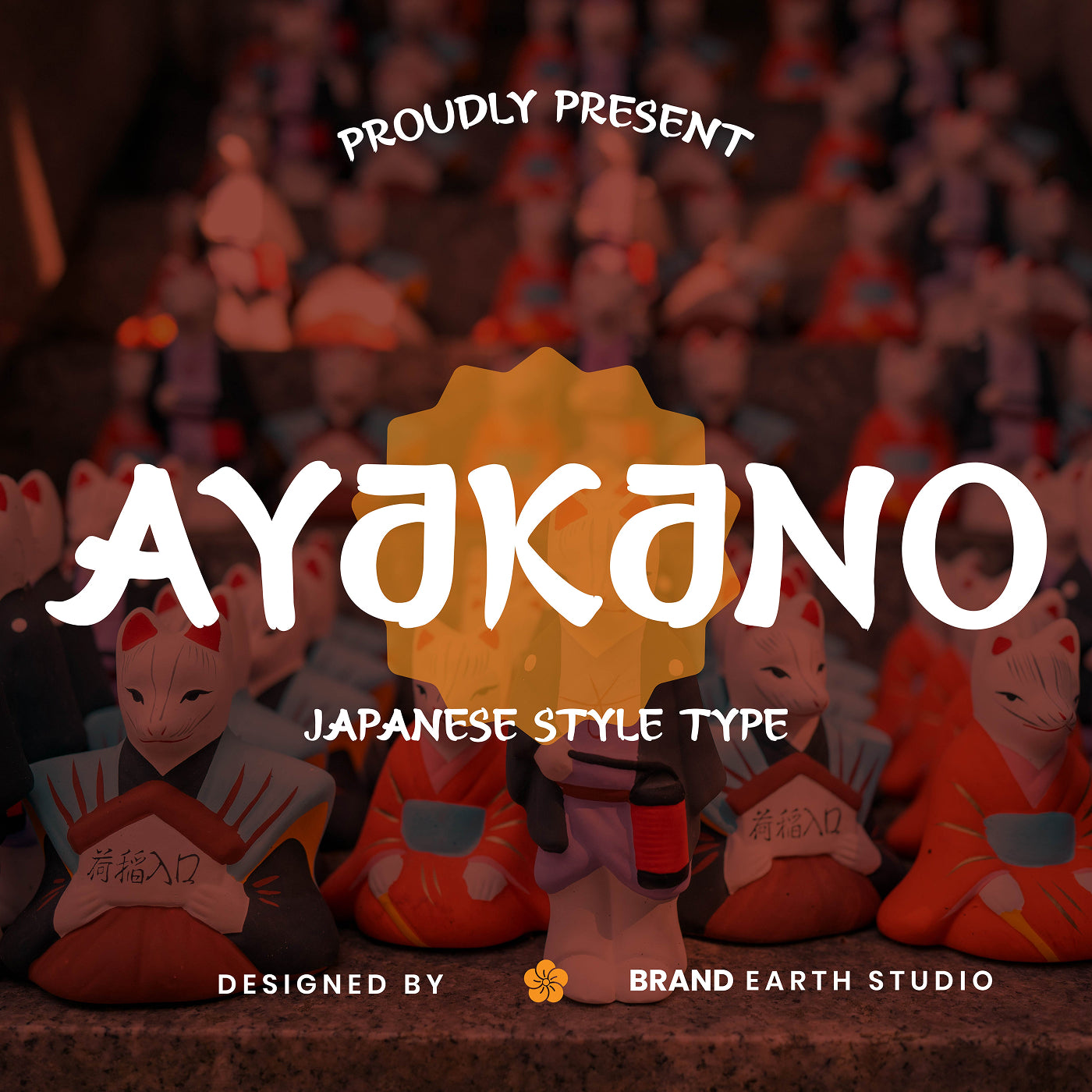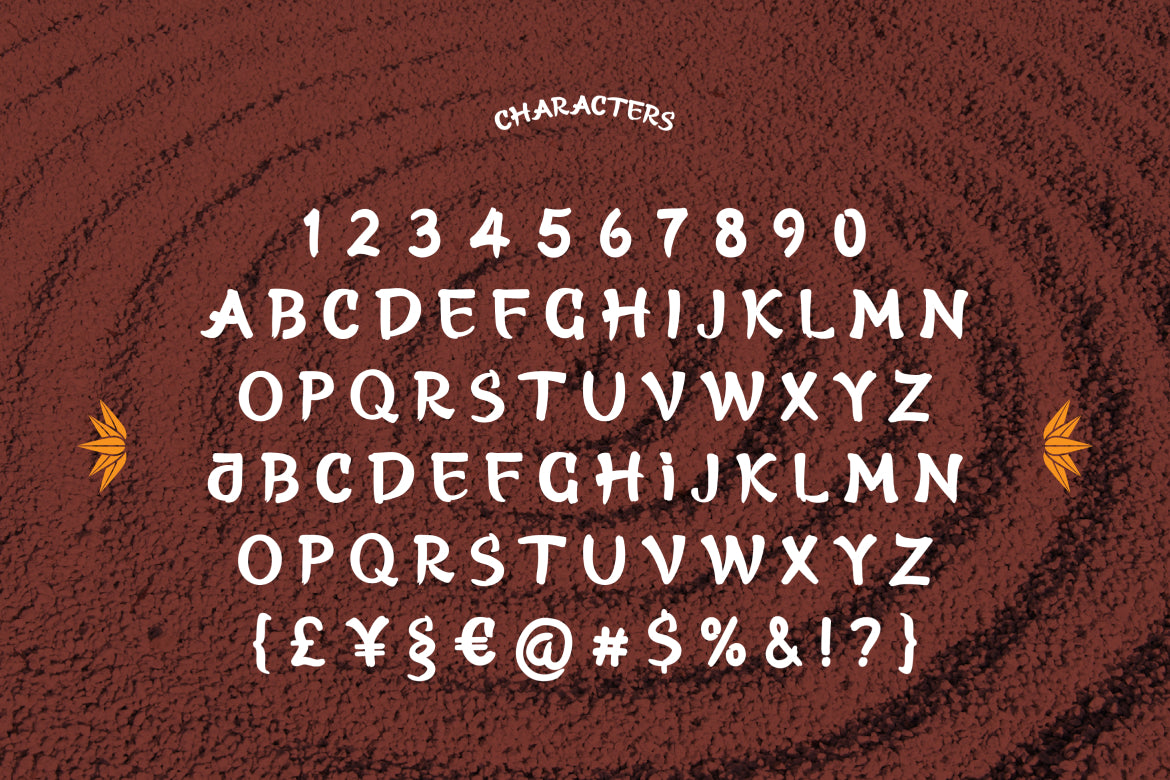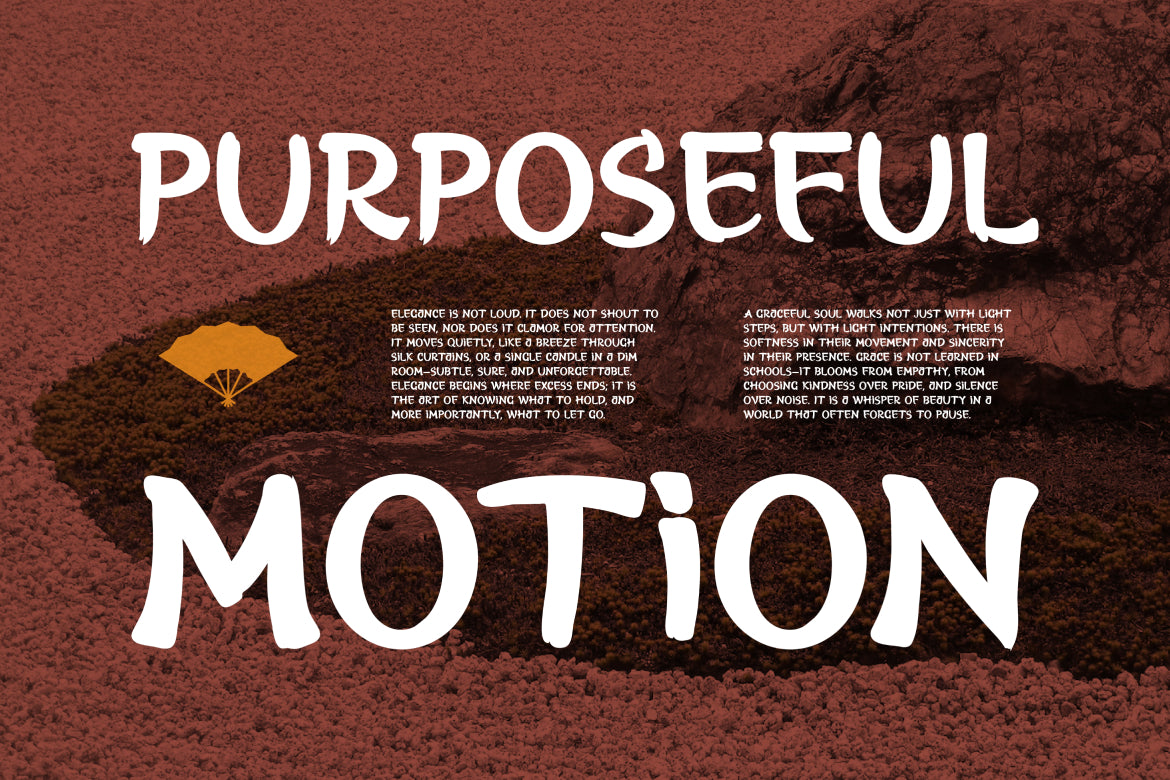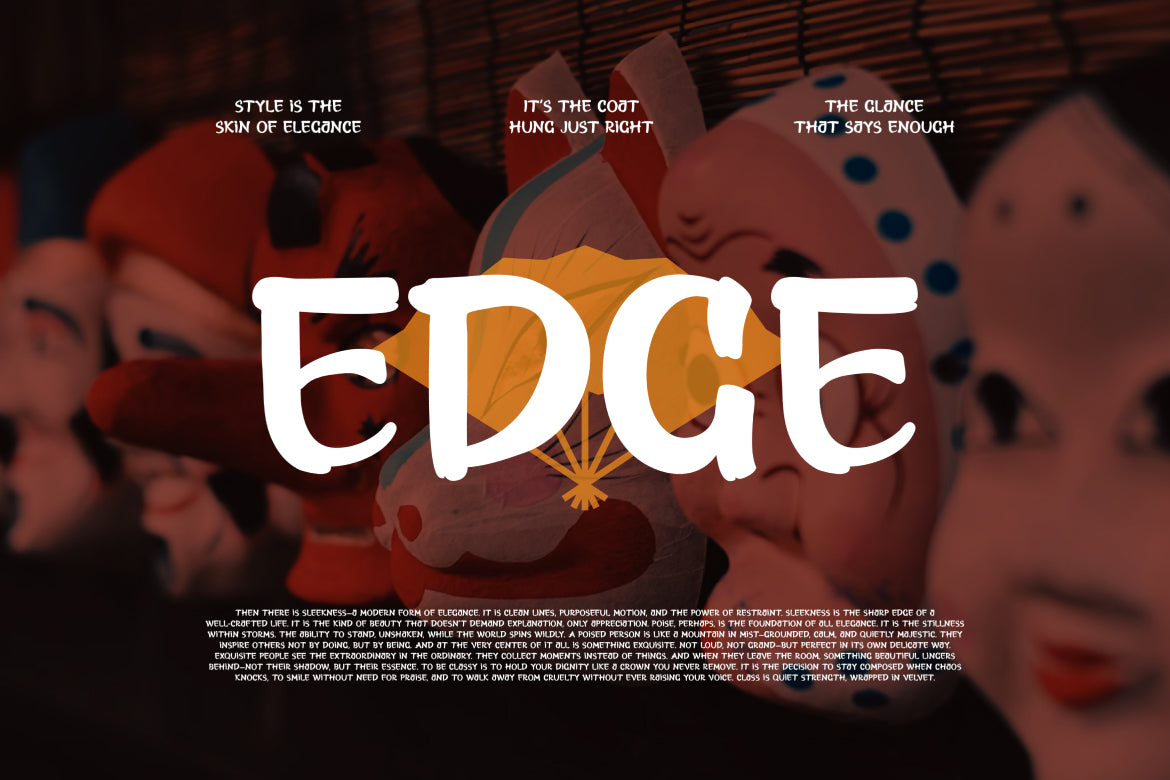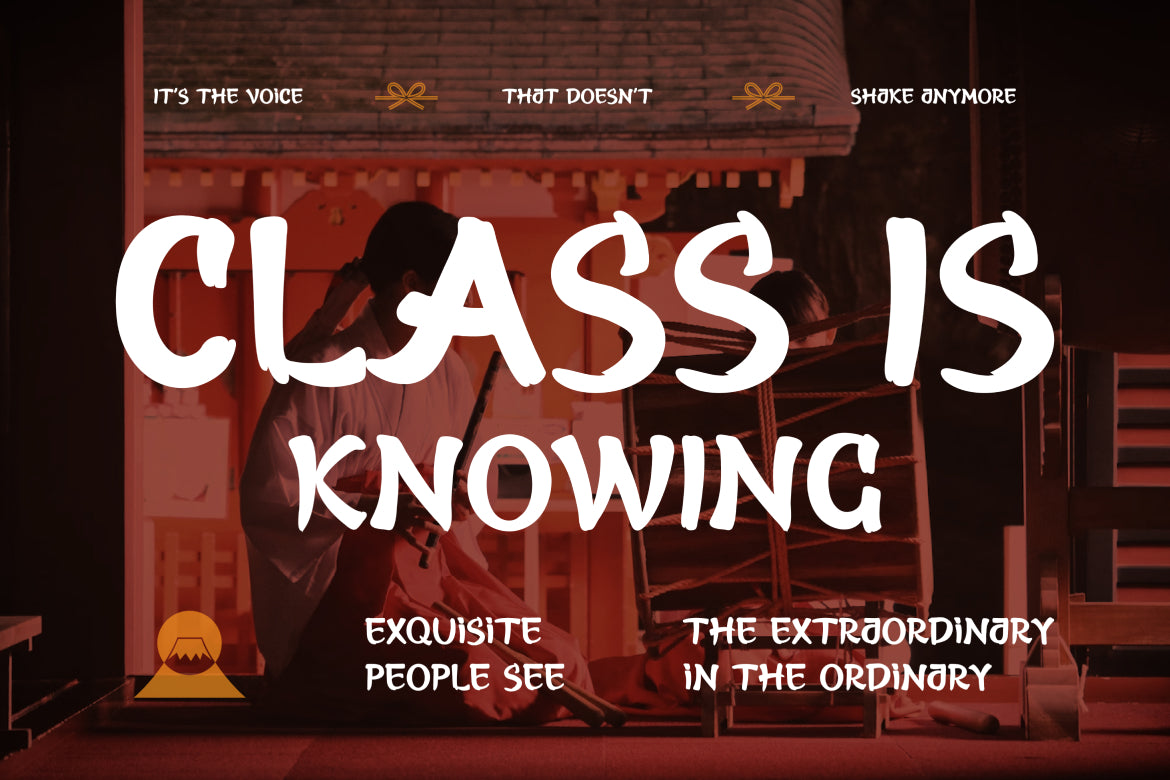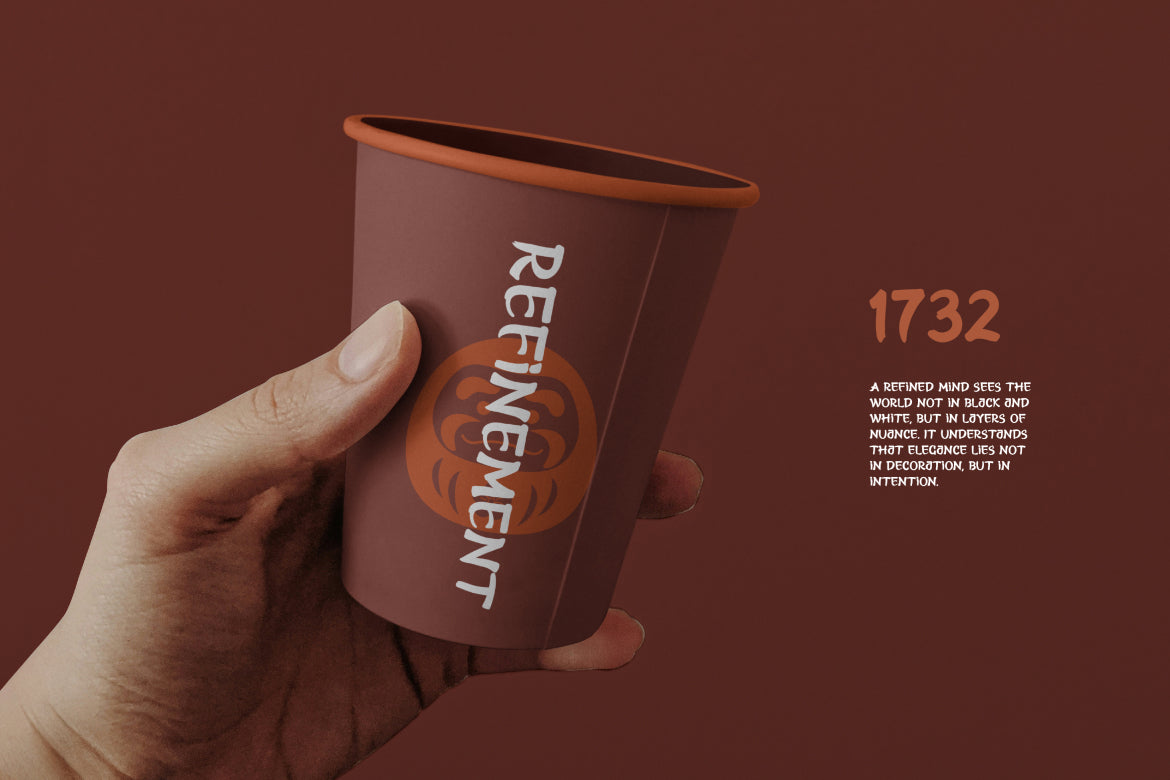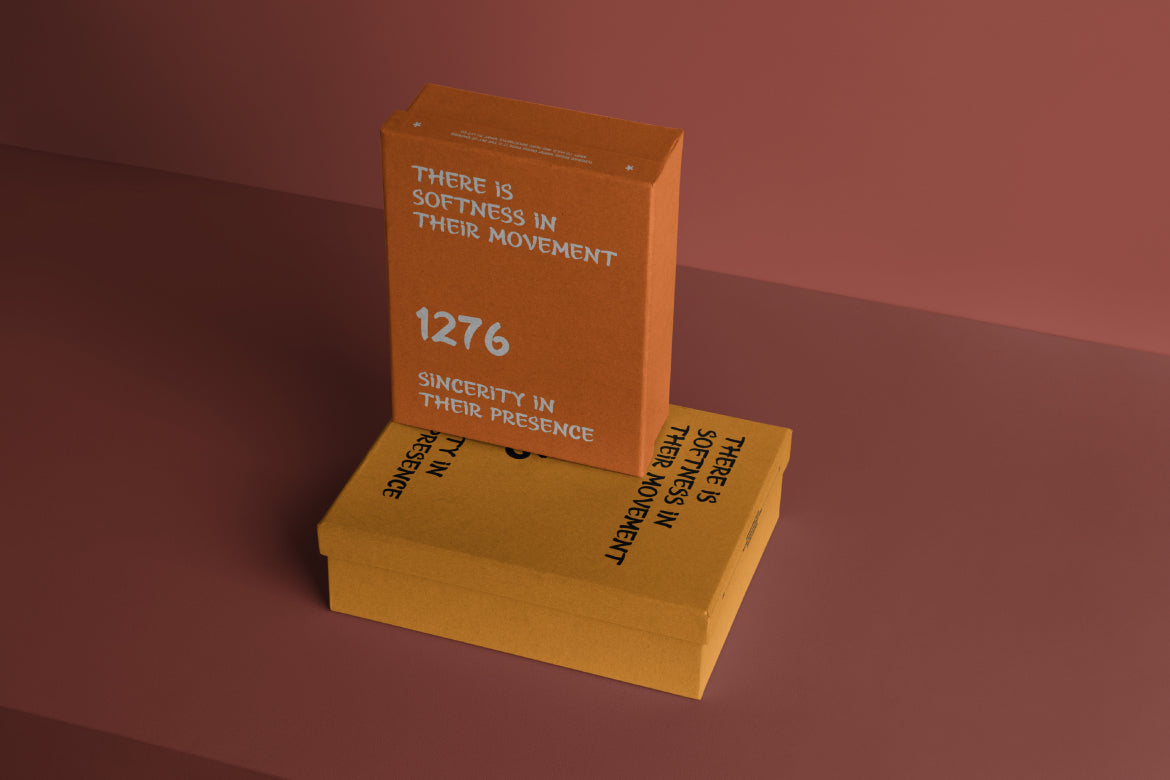
Ayakano Japanese Style Type Font
Ayakano is a playful Japanese-style display typeface featuring bold rounded letterforms, organic curves, and hand-drawn details that create a cheerful and expressive personality. Its soft, irregular shapes give the lettering a lively handcrafted feel, making it stand out in designs inspired by Japanese culture, street graphics, food, festivals, and contemporary pop aesthetics. The chunky construction keeps words highly visible at display sizes while maintaining a fun and approachable character. Ayakano can be used for posters, packaging, logos, merchandise, social media graphics, event artwork, titles, and creative branding that needs a distinctive Japanese-inspired visual style.
Ayakano is a Japanese-style display typeface with bold rounded letterforms, organic curves, and hand-drawn details, including uppercase and lowercase characters, numerals, and punctuation. It is available in TTF, OTF, and WOFF formats.